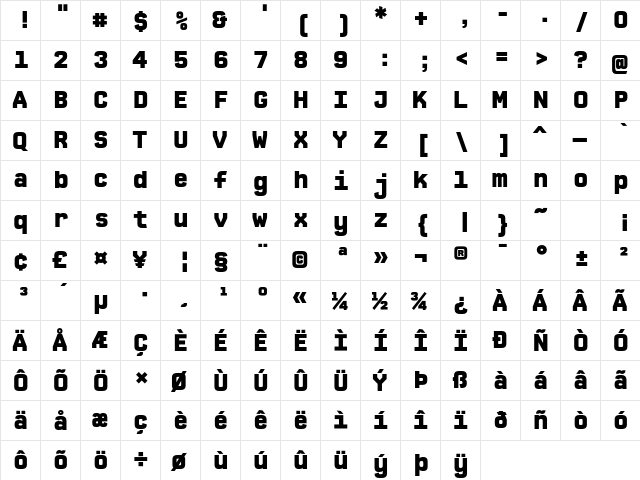
CPMono_v07 Black
| Foundry | Tino Meinert |
| Designer | Tino Meinert |
Design Context for CPMono_v07 Typeface
CPMono_v07 uses fixed-width spacing throughout, giving it the structured, systematic character associated with coding environments and technical documentation.